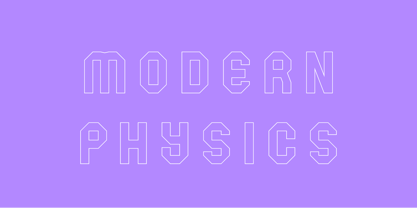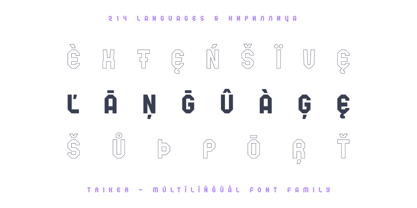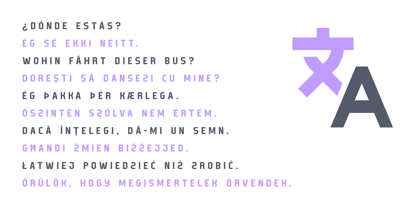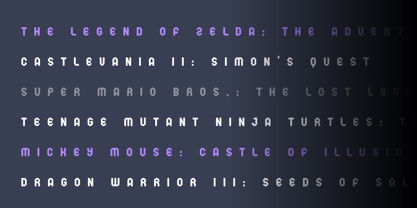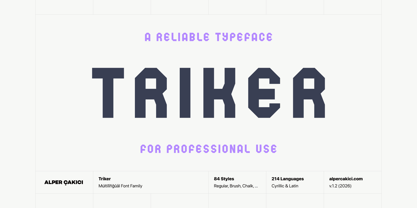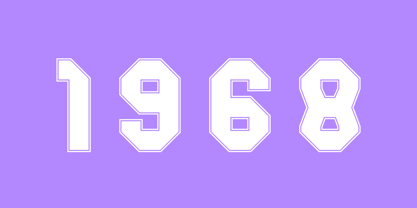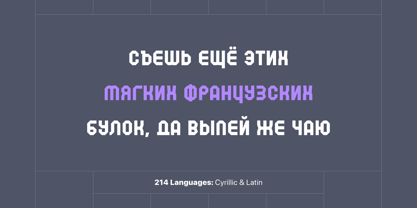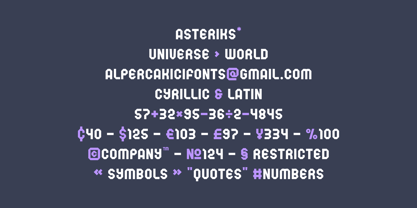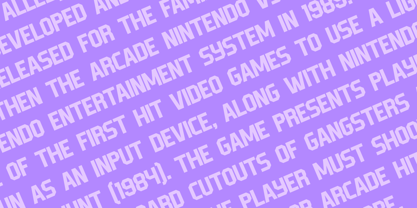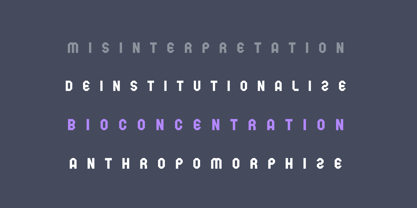
Triker
La famille de polices Triker a été conçue par Alper Çakıcı et publiée par AlperCakici. Triker contient 1 styles. En savoir plus sur cette famille
Triker is a modern, versatile font with excellent kerning, making it ideal for both digital and print use. It features full support for the Cyrillic language, allowing for seamless multilingual communication. Triker's unique design combines classic proportions with a contemporary feel, making it stand out from other same categories fonts.
It supports 91 Languages: Belarusian, Russian, Afrikaans, Albanian, Asu, Basque, Bemba, Bena, Breton, Catalan, Chiga, Colognian, Cornish, Croatian, Czech, Danish, Dutch, Embu, English, Esperanto, Estonian, Faroese, Filipino, Finnish, French, Friulian, Galician, German, Gusii, Hungarian, Indonesian, Irish, Italian, Kabuverdianu, Kalenjin, Kamba, Kikuyu, Kinyarwanda, Latvian, Lithuanian, Lower Sorbian, Luo, Luxembourgish, Luyia, Machame, Makhuwa-Meetto, Makonde, Malagasy, Maltese, Manx, Meru, Morisyen, North Ndebele, Norwegian Bokmål, Norwegian Nynorsk, Nyankole, Oromo, Polish, Portuguese, Quechua, Romanian, Romansh, Rombo, Rundi, Rwa, Samburu, Sango, Sangu, Scottish Gaelic, Sena, Serbian, Shambala, Shona, Slovak, Soga, Somali, Spanish, Swahili, Swedish, Swiss German, Taita, Teso, Turkish, Upper Sorbian, Uzbek (Latin), Volapük, Vunjo, Walser, Welsh, Western Frisian, Zulu